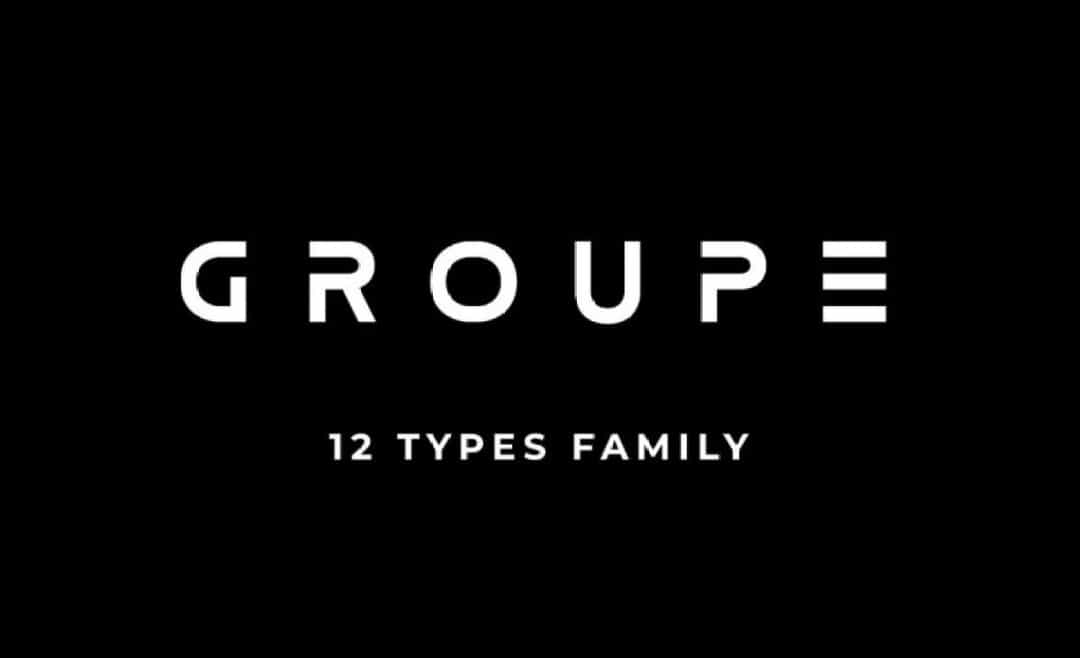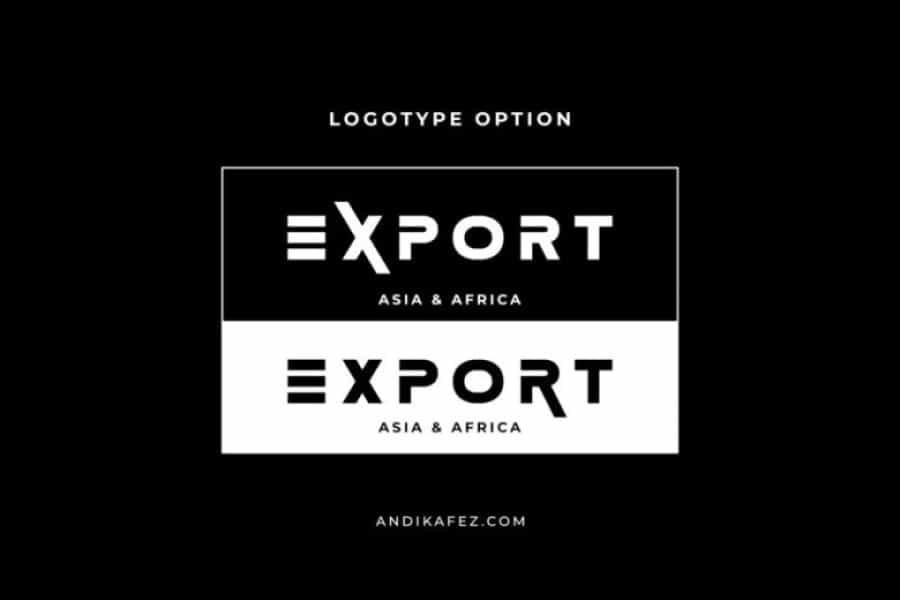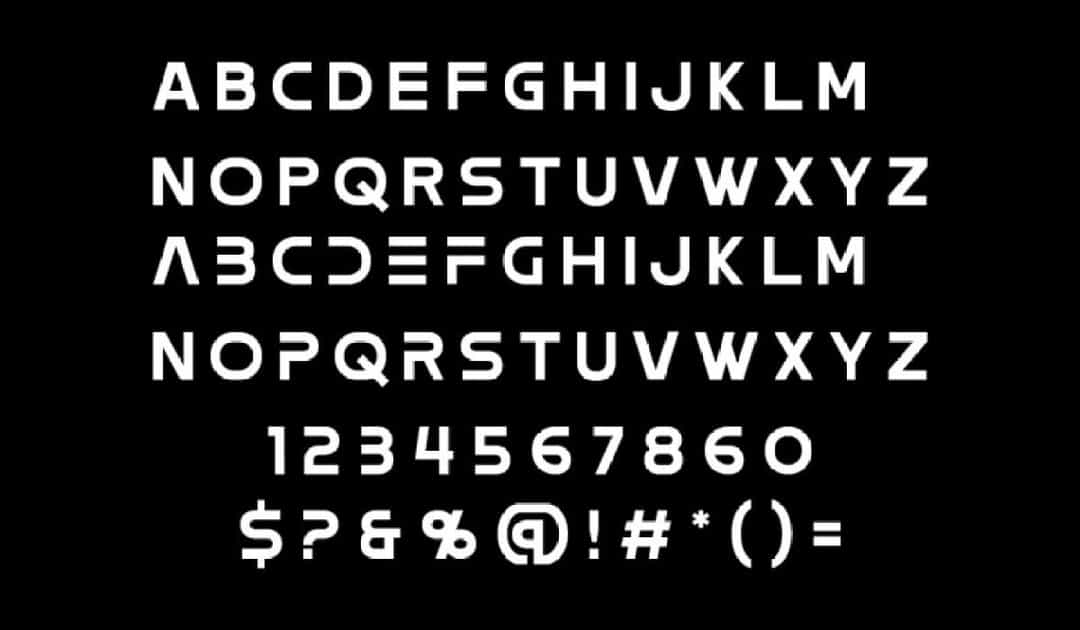
Groupe is an innovative logotype sans serif font designed by andikafez specifically to be part of minimalist logos. The font comes with various weight options to give users an enjoyable experience when using it.